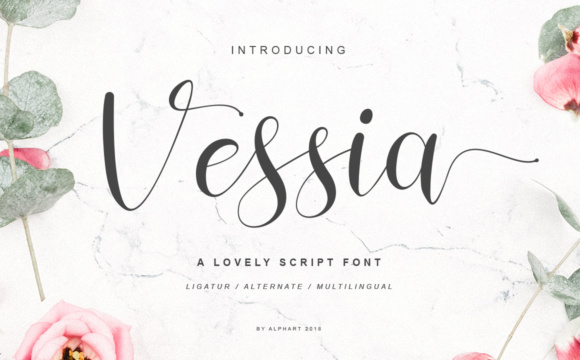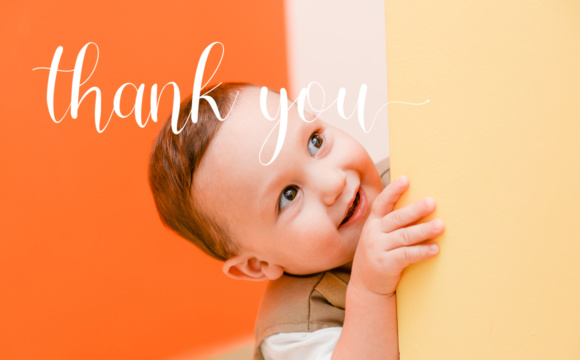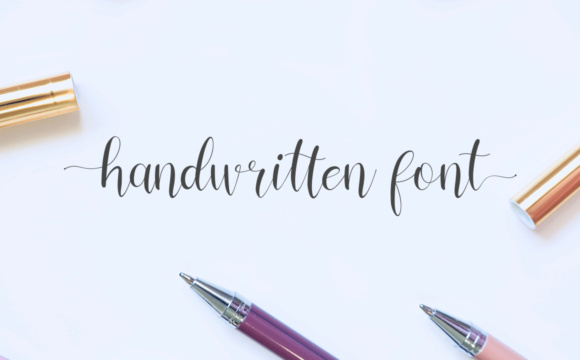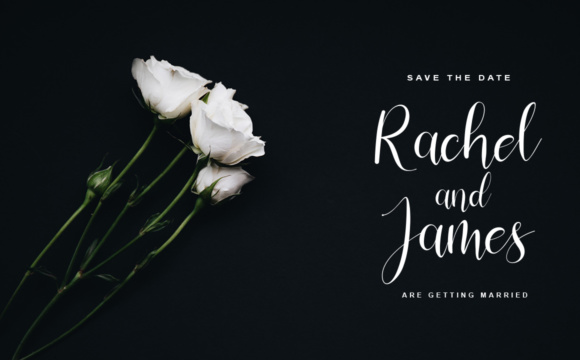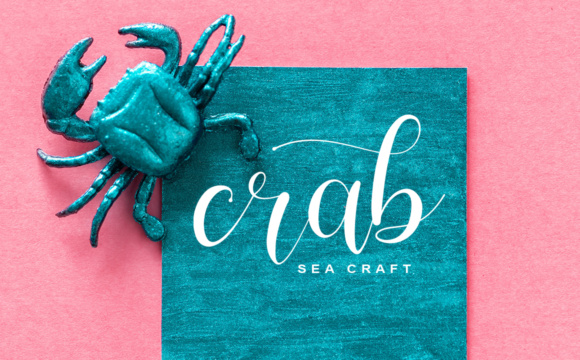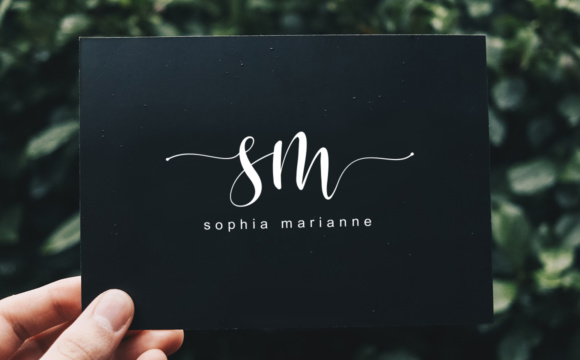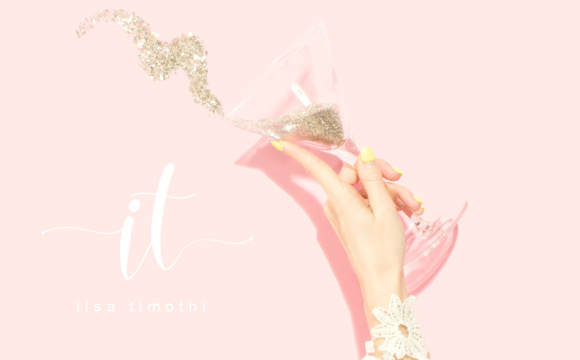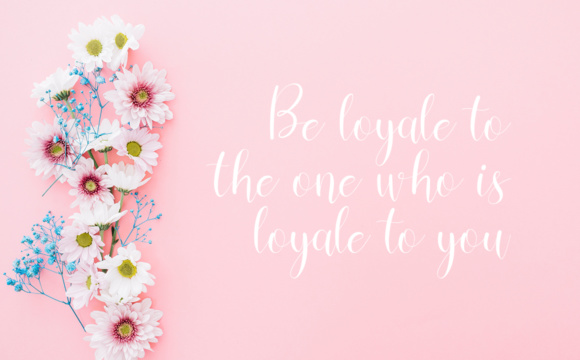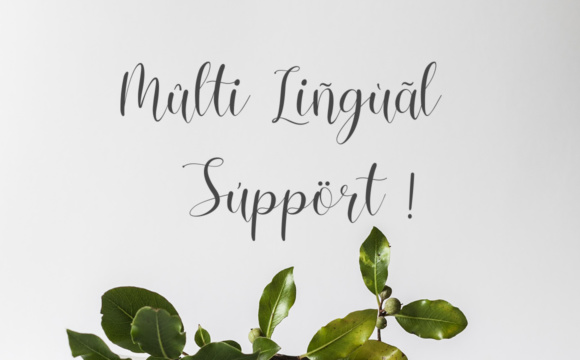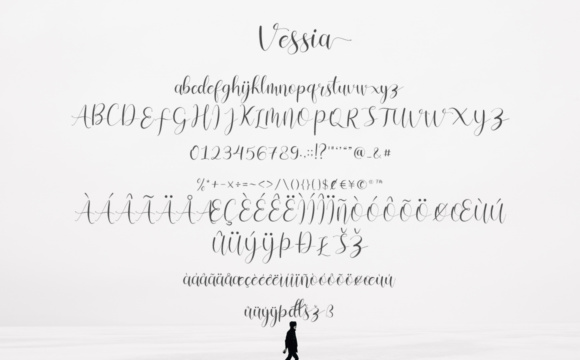
Vessia Script Font
About Vessia Script Font
The Vessia is a lovely script font. It has a modern and fresh style, perfect for any project that needs a cute, elegant, hand lettering.